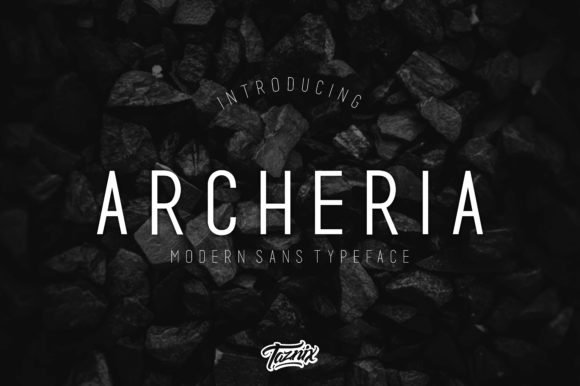
Have you ever stared at a blank page, eager to bring your creative vision to life, but struggled to find the right font to set the tone? We’ve all been there. But what if you could unlock a world of design possibilities with just one click? Introducing Archeria Font, an elegant sans serif font that’s about to become your new best friend.
Archeria Font is more than just a font – it’s a statement piece that adds a unique charm to any design project. With its modern feel and sleek lines, it’s the perfect choice for designers looking to elevate their work and stand out from the crowd. Whether you’re working on a logo, brochure, or website, Archeria Font is the perfect addition to take your design to the next level.
So why settle for an ordinary font when you can have an extraordinary one? Discover the beauty of Archeria Font and unlock your full design potential.
Archeria Font Key Features
- Unique Characteristics: Archeria Font is a modern sans-serif typeface with clean lines and geometric shapes, making it ideal for digital and print materials.
- Size: The font family includes 6 weights (Light, Regular, Medium, Bold, Heavy, Black) and 3 styles (Normal, Italic, Oblique)
- Resolution: Optimized for high-resolution displays, suitable for use at sizes as small as 10pt and as large as 72pt
- Language Support: Archeria Font supports a wide range of languages, including Latin, Cyrillic, Greek, and many more
Archeria Font Review
Overall, I was excited to dive into the Archeria Font, and I’m glad I did. Here’s my honest take on this font.
- ✨ Beautifully designed strokes and curves, creating a unique and eye-catching look.
- ✨ High level of customization options, making it perfect for designers who want to fine-tune their designs.
- ✨ Excellent legibility, even at smaller font sizes.
- ⚠️ Limited font weight options, which might not be ideal for designers who need a wide range of weights for their projects.
- ⚠️ Not ideal for body text, as it can be quite busy and overwhelming for large amounts of text.
- ⚠️ Not a great choice for logos, as it might not be scalable enough for all resolutions and sizes.
The Archeria Font is a great addition to any designer’s toolkit, especially for those who want to add a touch of elegance and sophistication to their designs. While it has some limitations, its unique design and high level of customization make it a great choice for specific projects. I’d definitely recommend it for titles, headings, and other design elements where a bold and eye-catching look is needed.
Archeria Font is perfect for creating elegant and modern designs in Canva. Use it for titles, headings, or body text to add a touch of sophistication to your graphics.
Archeria Font is ideal for creating high-end designs in Adobe Photoshop or Illustrator. Use it for titles, headings, or body text to add a touch of elegance to your designs.
Archeria Font is perfect for creating professional-looking presentations and documents in PowerPoint or Word. Use it for titles, headings, or body text to add a touch of sophistication to your content.
Archeria Font is ideal for:
- Creating elegant and modern designs.
- Adding a touch of sophistication to titles, headings, or body text.
- Designing high-end graphics, presentations, and documents.
Alternatives to Archeria Font for Designers
Oswald is a sans-serif font that is often used in digital design due to its clean and modern appearance. It is a good alternative to Archeria Font for projects that require a more minimalist aesthetic.
Compared to Archeria Font, Oswald is more geometric and has a more neutral tone, making it suitable for a wider range of applications. It is a great choice for websites, apps, and other digital platforms.
Montserrat is a sans-serif font that is inspired by the urban landscape of Montserrat, a mountain range in Argentina. It is a great alternative to Archeria Font for projects that require a strong and modern feel.